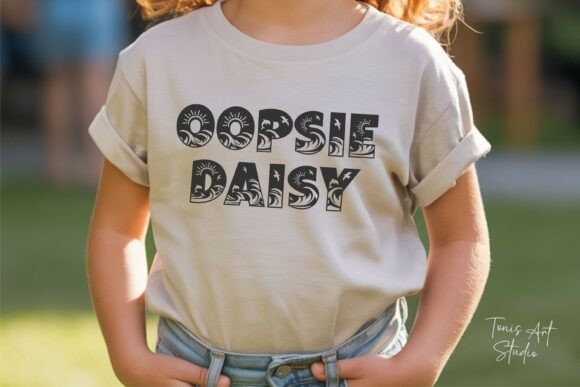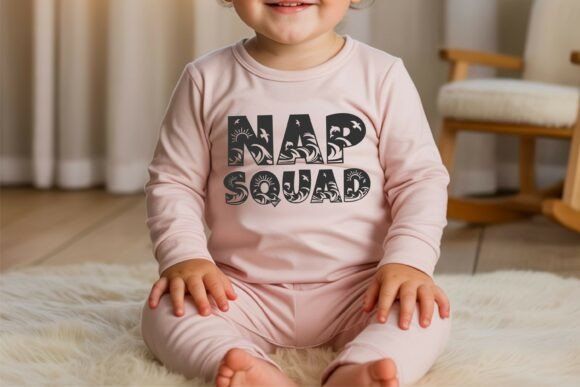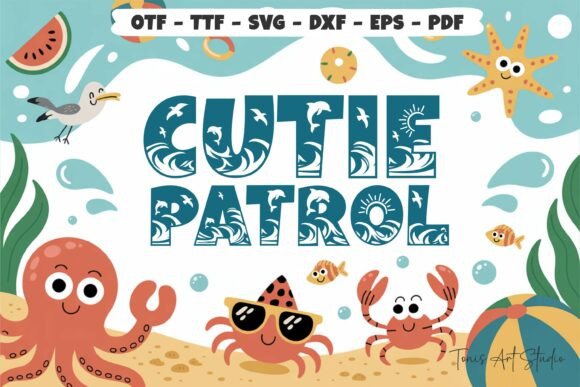
Introduction to Ocean Hugs Font
As I sat at my desk, surrounded by scraps of paper, pencils, and a half-finished design project, I couldn’t help but feel a pang of creative block. That’s when I stumbled upon the perfect remedy: the enchanting Ocean Hugs Font. Its whimsical marine-inspired design instantly transported me to a sunny beach, where the rhythm of the waves and the chirping of seagulls reignited my passion for design.
As a designer, I’ve come to appreciate the value of high-quality fonts that can elevate a project from ordinary to extraordinary. The Ocean Hugs Font is more than just a design resource – it’s a tool that can bring joy and imagination to your creative projects. With its comprehensive multilingual support and versatile formats, it’s the perfect addition to any designer’s toolkit.
Key Features of Ocean Hugs Font
- High-resolution design, perfect for creative projects that require a touch of elegance.
- Designed with a unique, hand-drawn feel, perfect for adding a personal touch to your creative project.
Honest Review: Ocean Hugs Font
As a designer, I’m always on the lookout for unique and high-quality design resources to elevate my creative projects. The Ocean Hugs Font has caught my attention, and I’m excited to share my thoughts on it.
- Customizable: The Ocean Hugs Font offers a range of customizable options, making it perfect for designers who want to add a personal touch to their projects.
While the Ocean Hugs Font is a great addition to any design library, I do have a few concerns:
- Limited Character Set: The font’s character set is somewhat limited, which may not be suitable for longer texts or formal projects.
- No Bold/Italic Options: I would have liked to see more options for bold and italic styles to add more depth to my designs.
Overall, I’m impressed with the Ocean Hugs Font, and I appreciate the designer’s efforts to create a unique and high-quality design resource. While it may not be perfect, it’s definitely worth adding to your design library for creative projects that require a touch of whimsy.
Tips for Getting the Most Out of the Ocean Hugs Font
For a high-quality design, use the Ocean Hugs Font in conjunction with a transparent background to create a clean and modern look. Experiment with different font sizes and colors to add depth and interest to your design. Consider using the font in a creative project, such as a wedding invitation or a social media graphic.